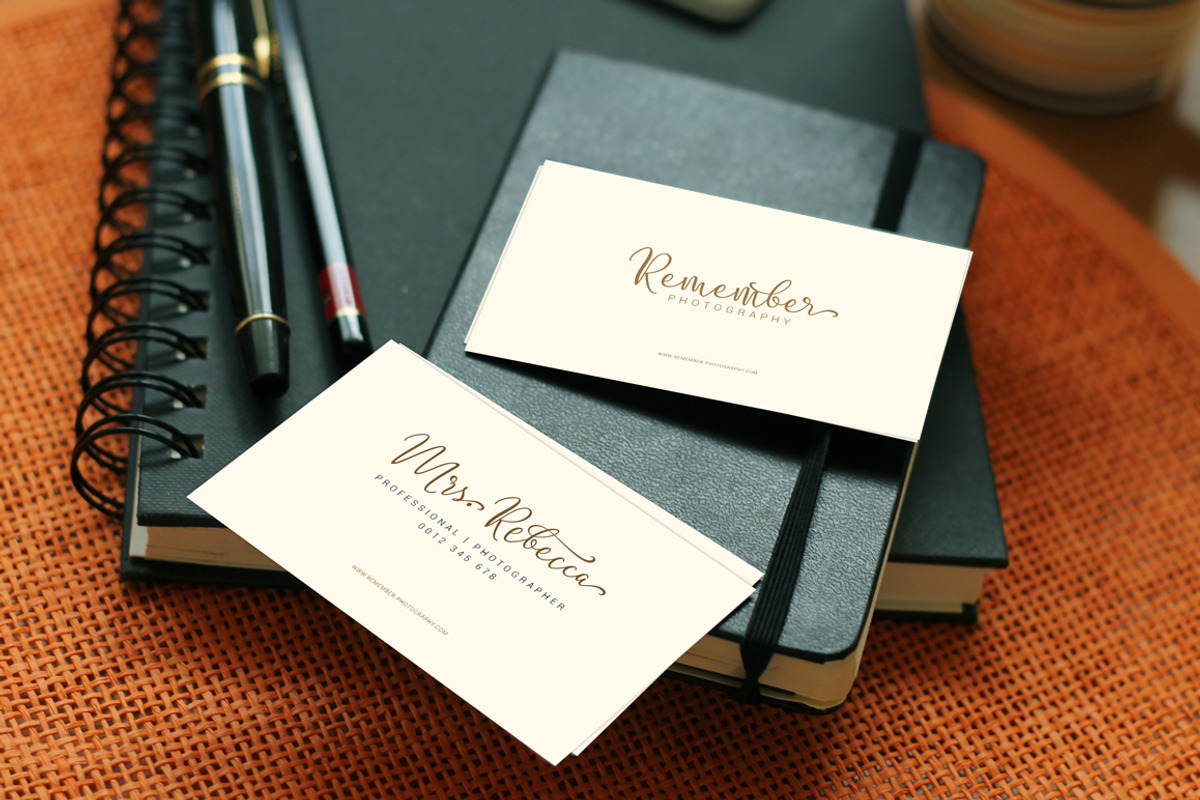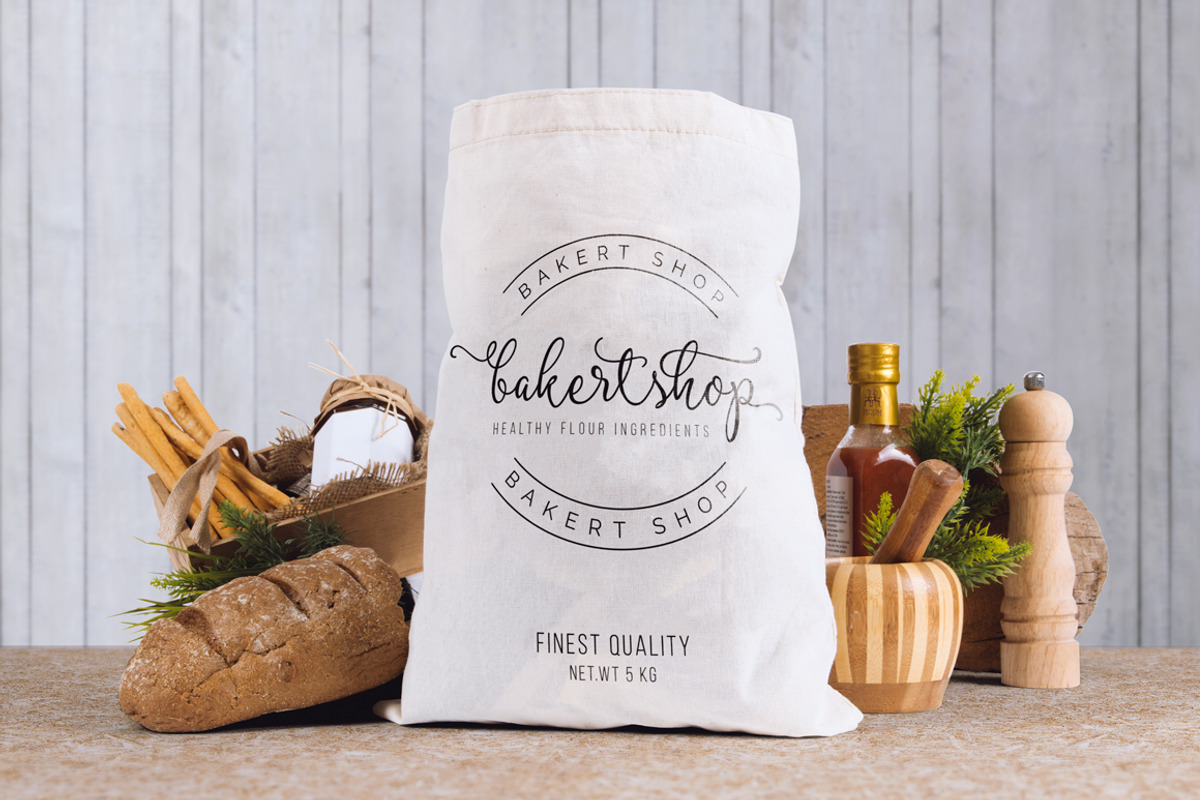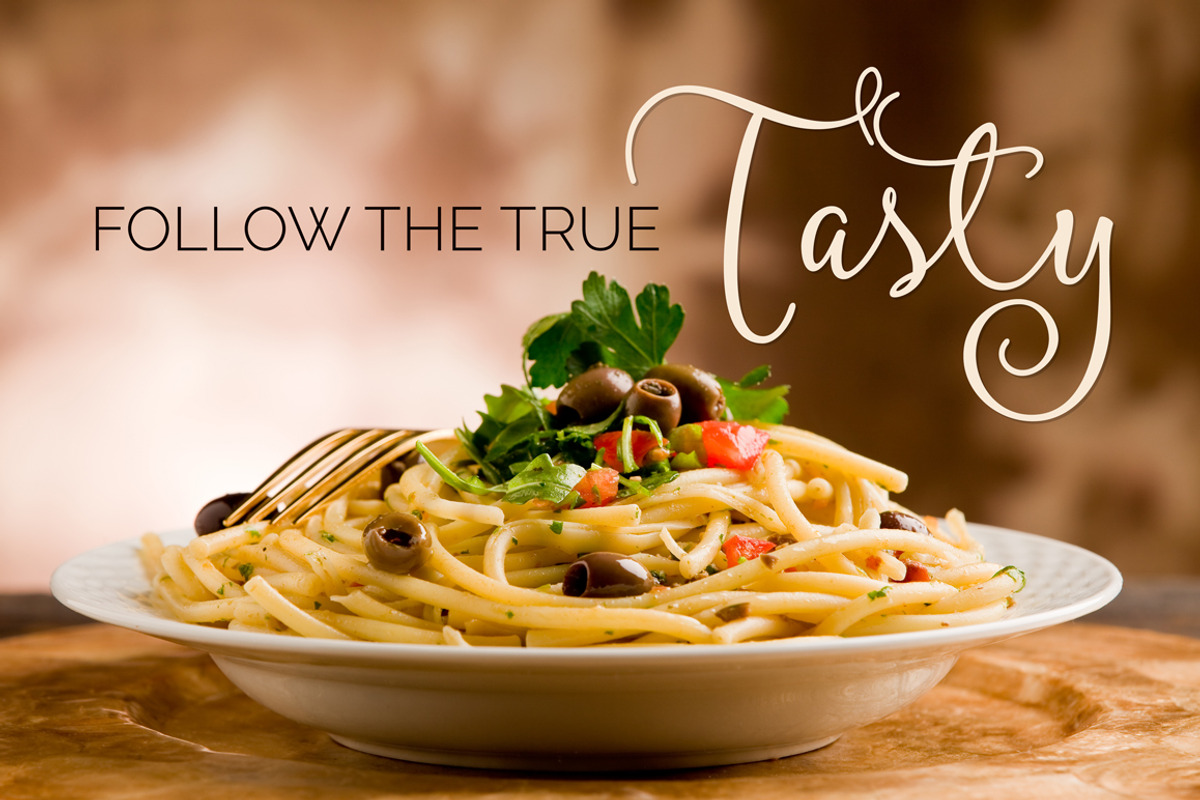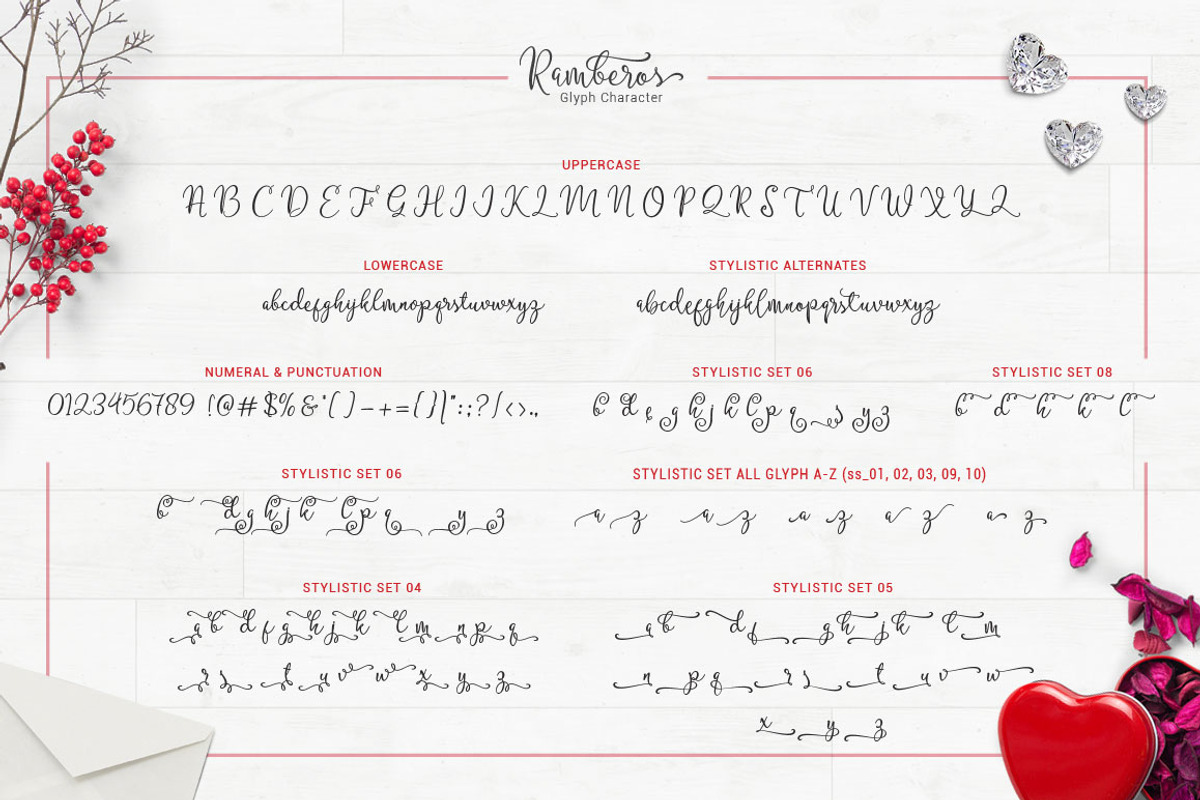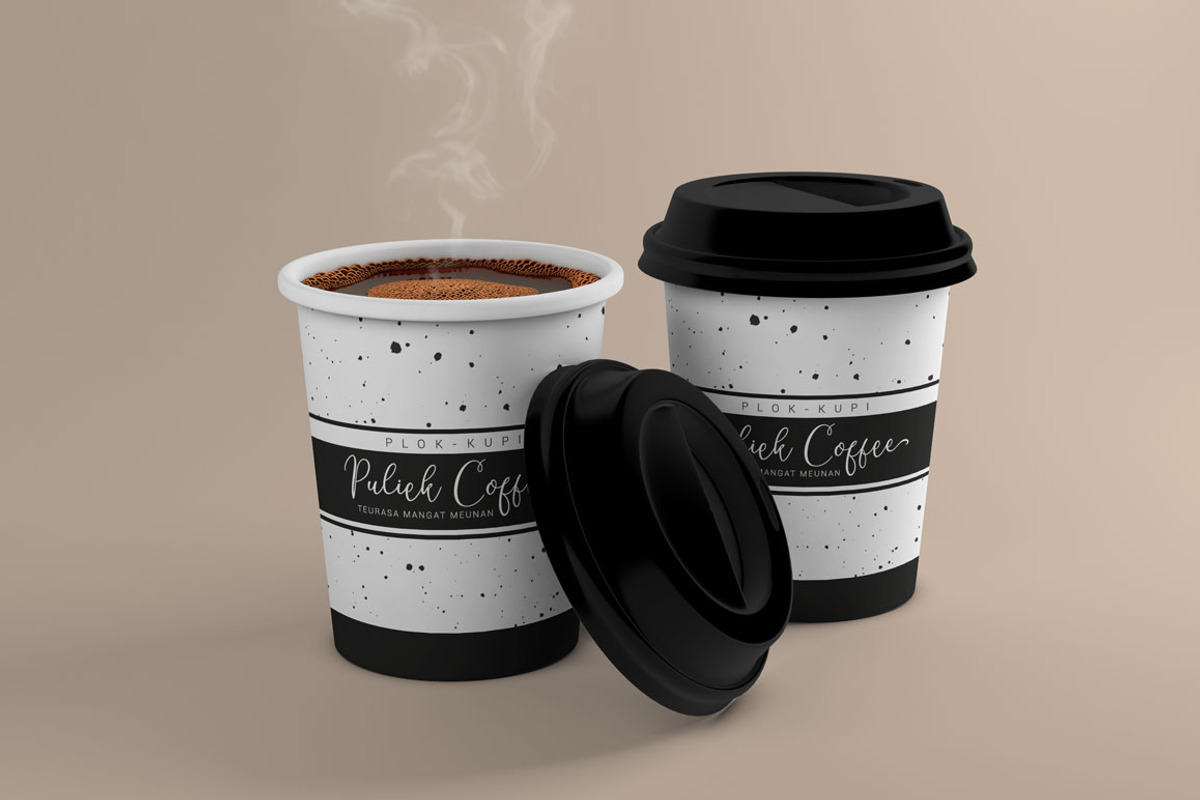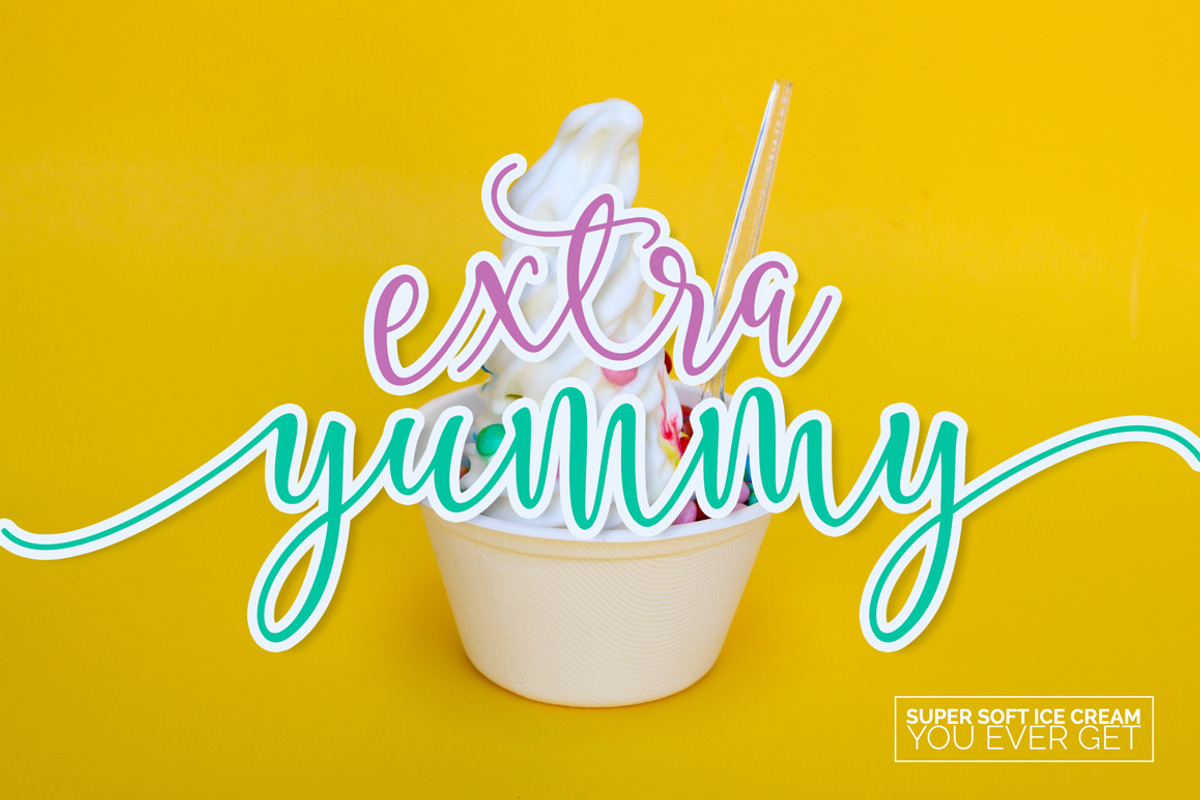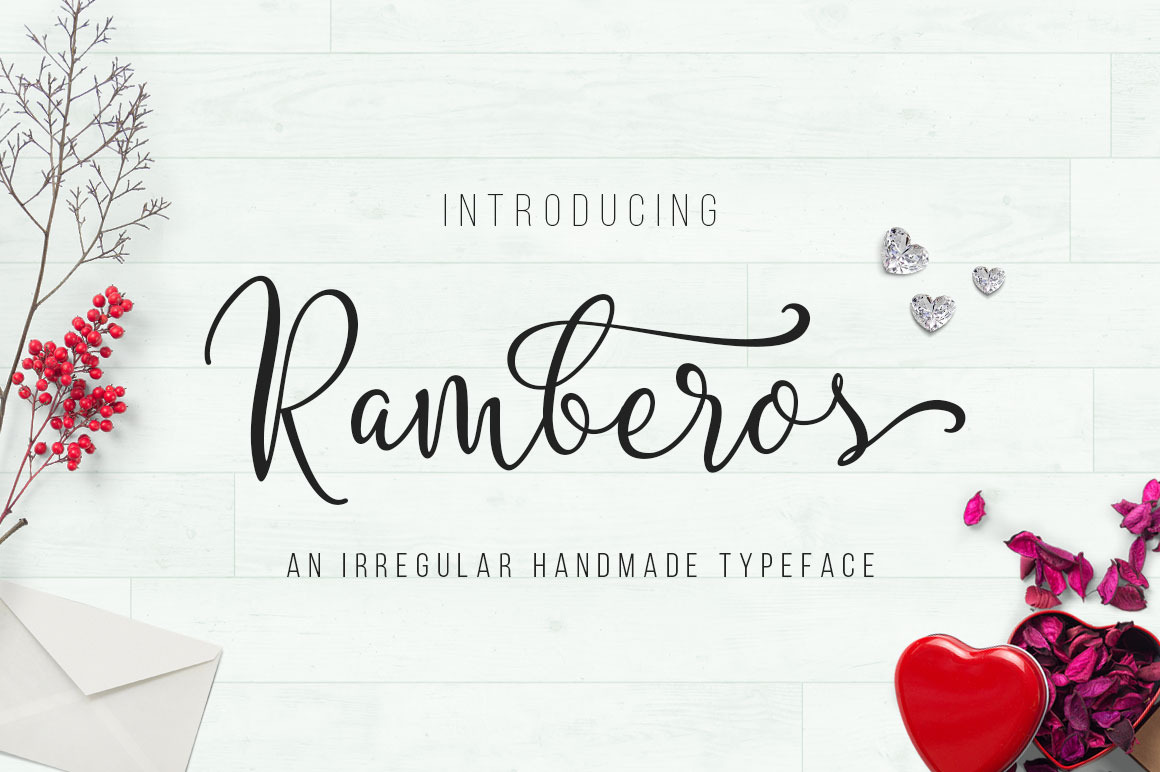
Ramberos Typeface
Ramberos is beautiful irregular typeface. Created with beautiful handwriting based. Suitable for wedding invitations, greeting cards, design of water-based paint, correspondence, and any other purposes.
Ramberos typeface Already Complete With PUA Unicode (specially coded fonts), so that all the alternate characters can easily be accessed in full by a craftsman or designer.
- Standard ligatures
- Stylistic sets